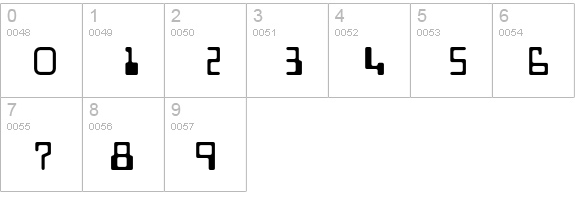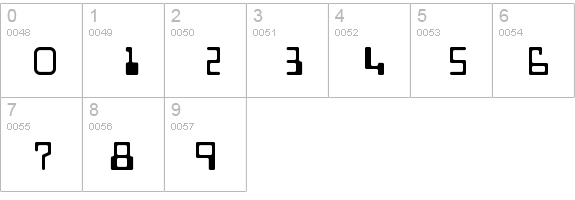
MICR Std Medium is a balanced, medium-weight variant in the MICR typeface family \xE2\x80\x94 well suited to sub-headlines, navigation, and balanced editorial work.
MICR Std Medium font is a versatile and professional typeface that is perfect for financial and banking applications. With its clean and easily readable design, this font is ideal for printing checks, invoices, and other financial documents. The MICR Std Medium font features the unique magnetic ink character recognition (MICR) symbols, making it compliant with banking standards. What sets this font apart is that it is available for free download at FontsMarket.com. This means that users can easily access and utilize this high-quality font without any cost. Whether you are a financial institution looking for a reliable and secure font for check printing, or a designer in need of a clean and clear typeface for your projects, MICR Std Medium font is a great choice that won't break the bank. Download it today and enhance your designs with this exceptional and cost-effective font.